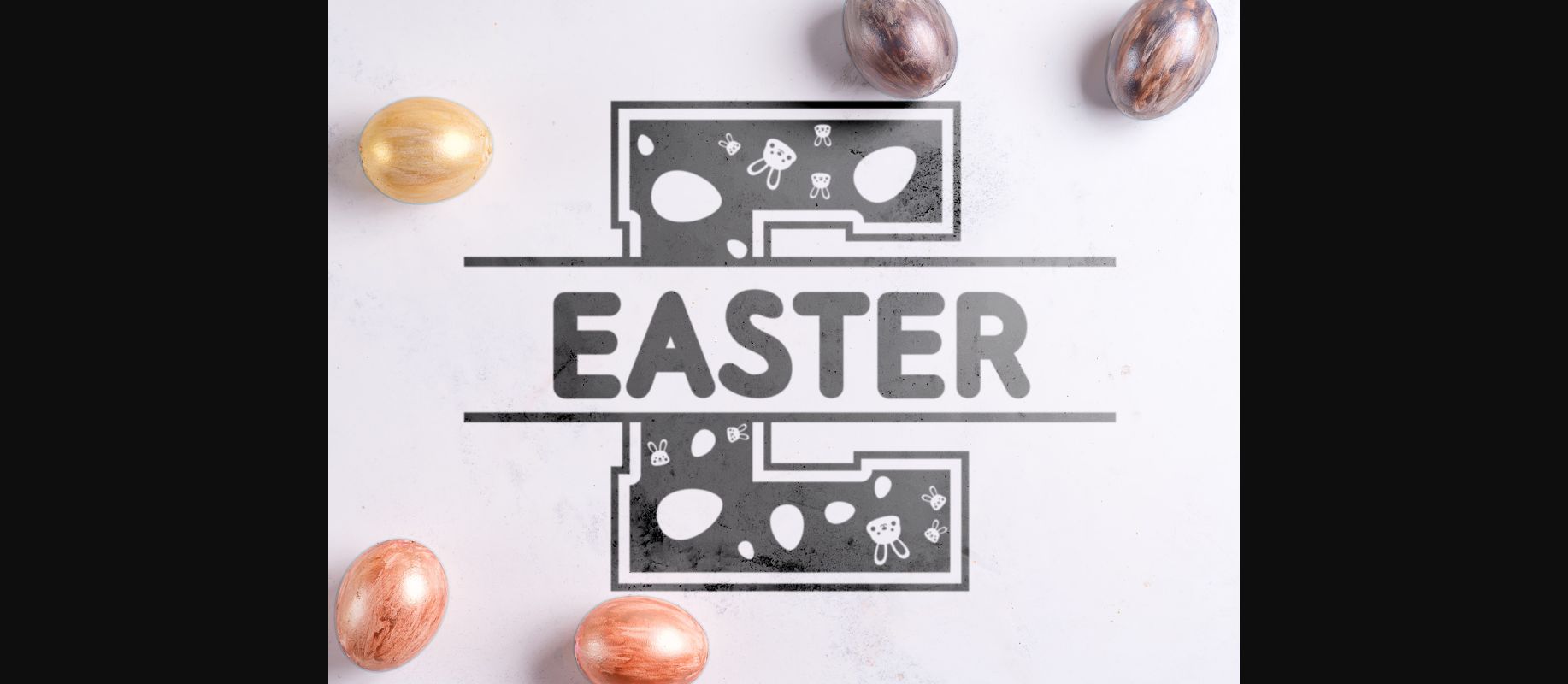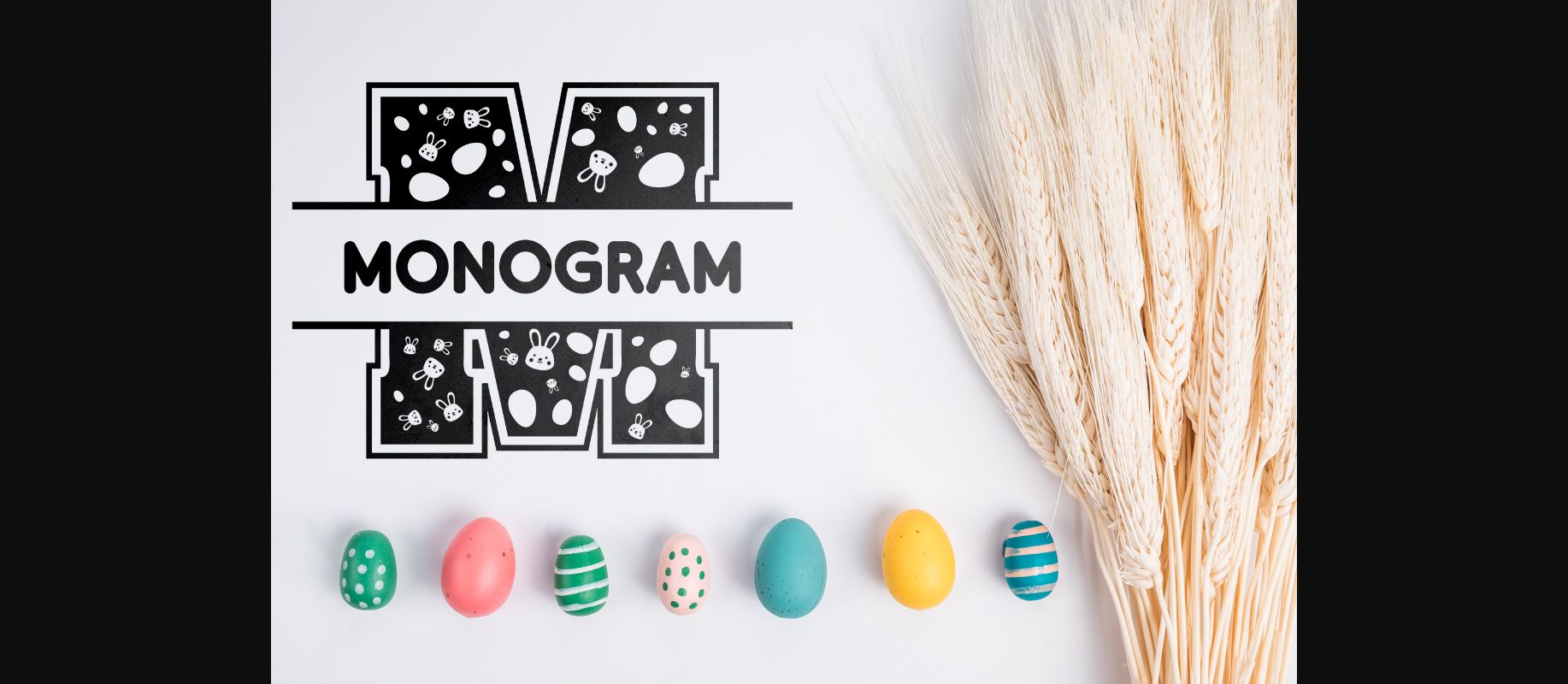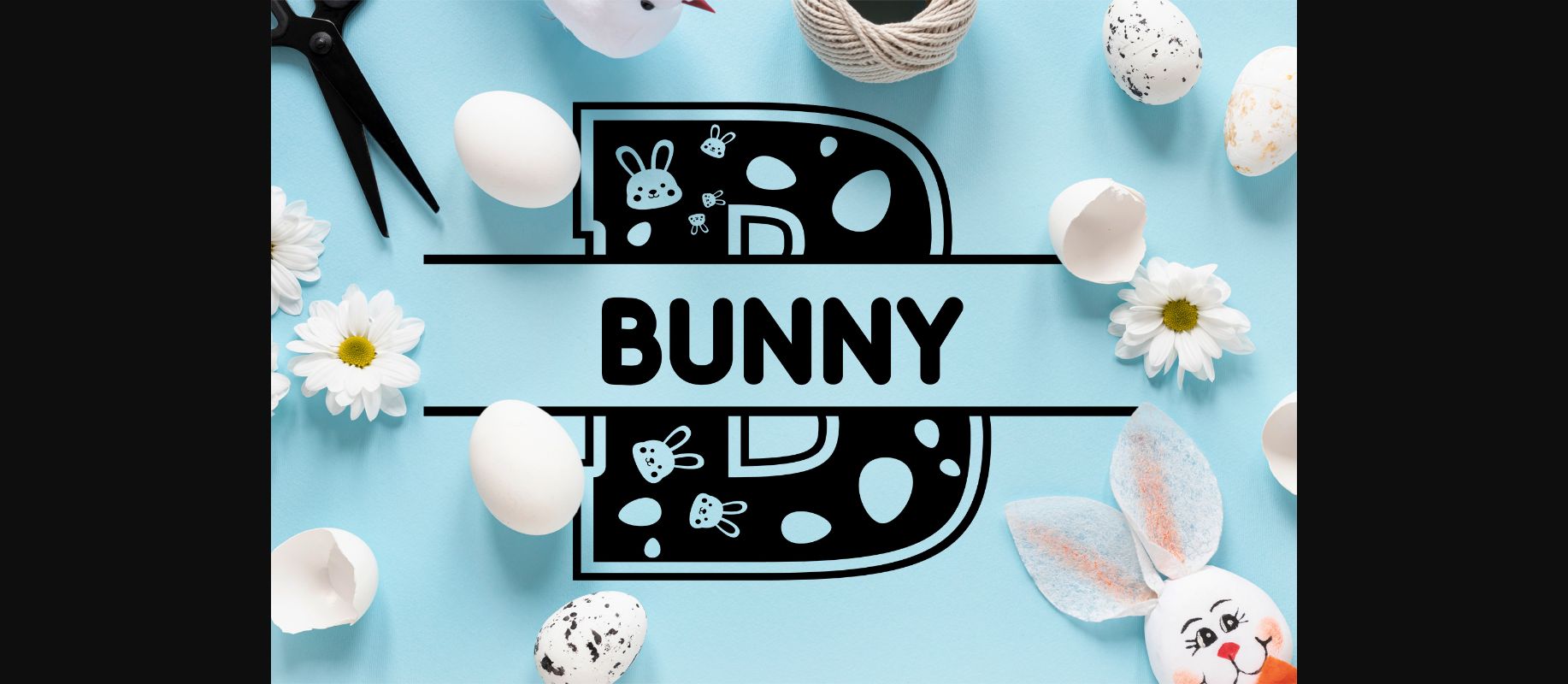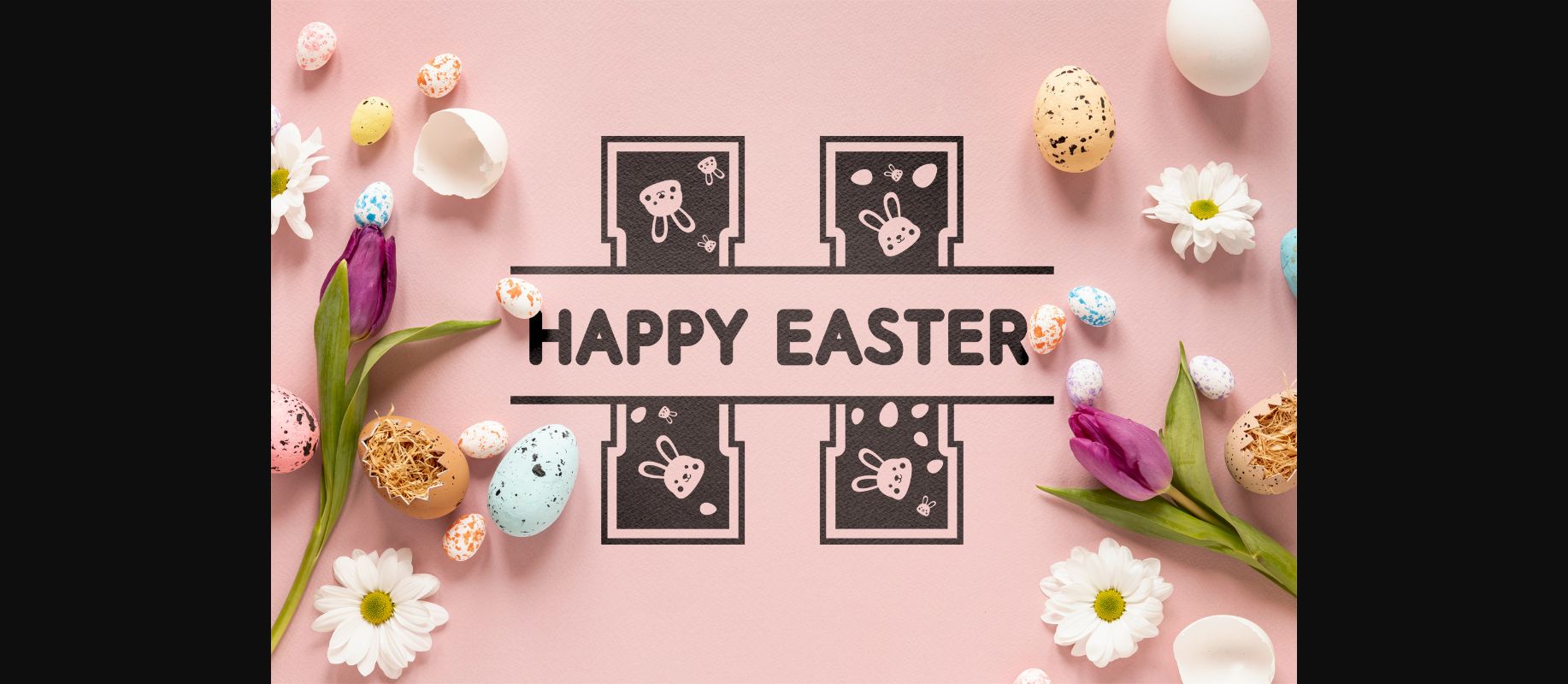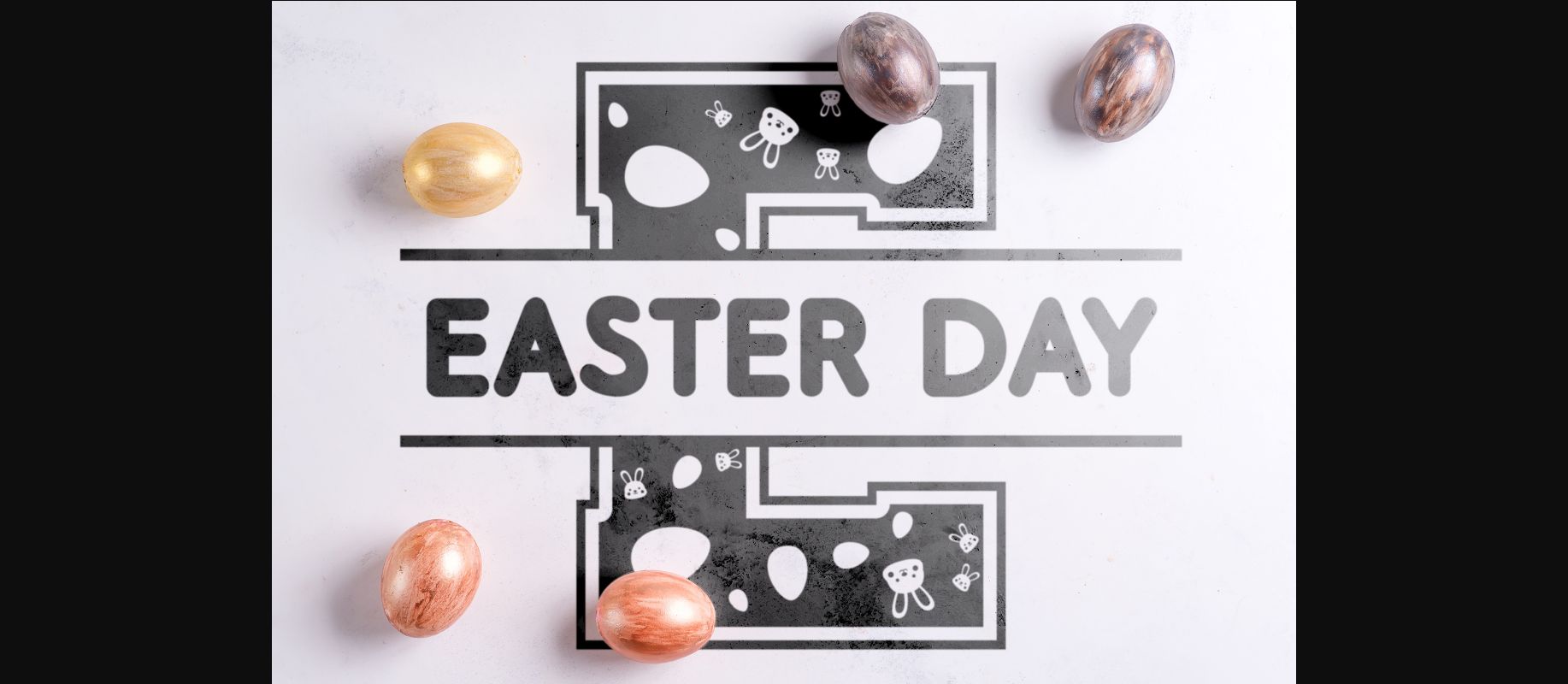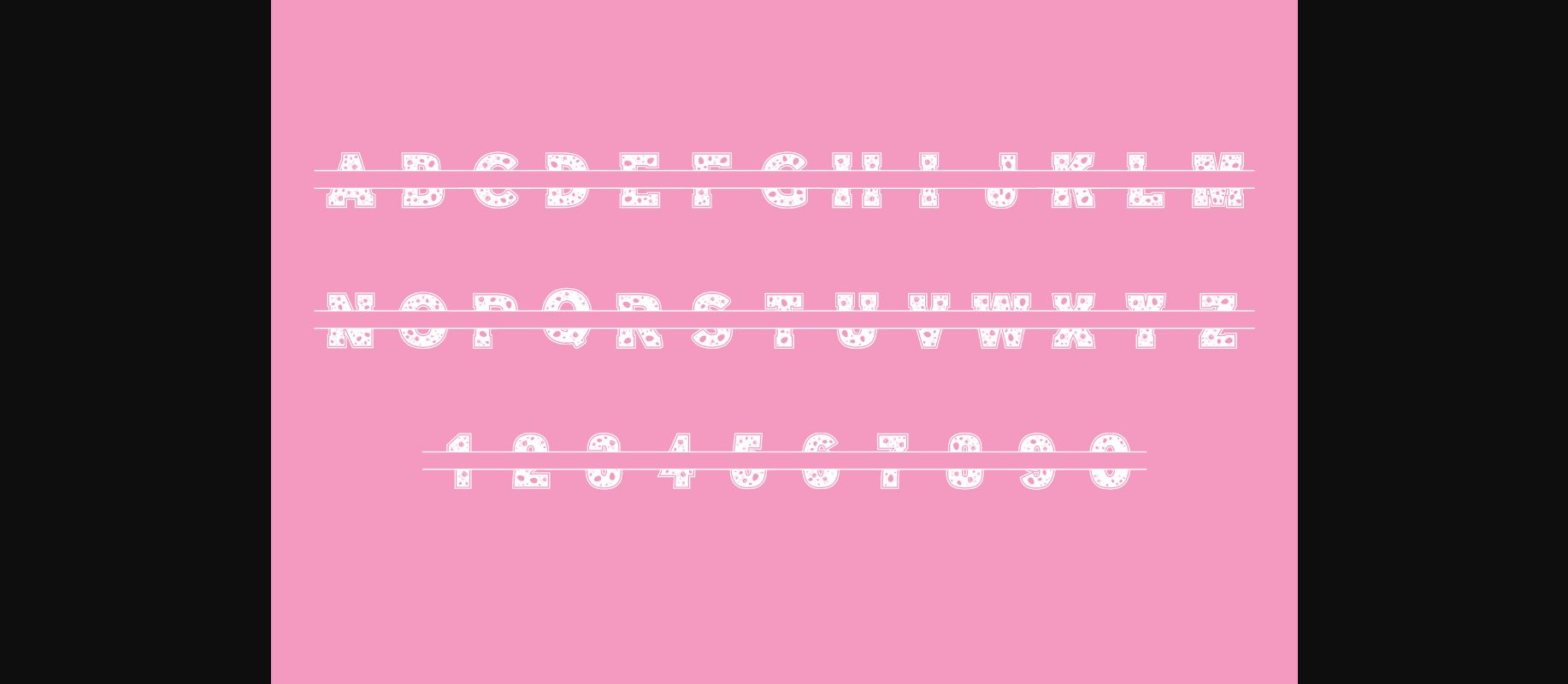
About Easter Font
Make your designs stand out with Easter , a stylish and unique decorative font. It will look stunning on posters, thank you cards, quotes, greeting cards, logos, business cards and every other design which needs a creative touch.